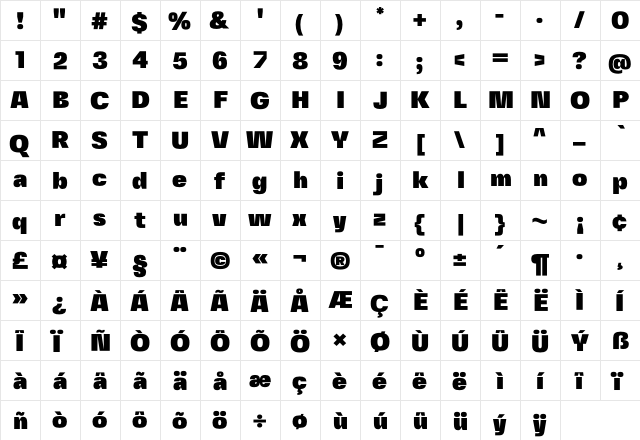
Fivo Sans Modern ExtBlk Regular
| Foundry | Alexander Slobzheninov |
| Designer | Alexander Slobzheninov |
Design Context for Fivo Sans Modern ExtBlk Typeface
Fivo Sans Modern ExtBlk offers clean, dependable letterforms without strong stylistic allegiance, making it a practical choice for designers who need flexibility.